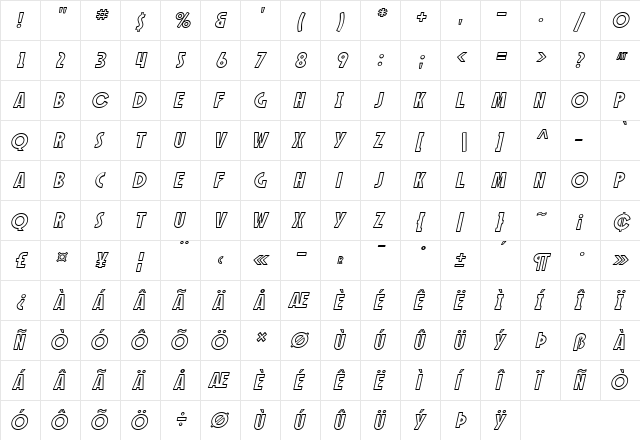
SF Speakeasy Outline Oblique
| Designer | ShyFonts Type Foundry |
Design Context for SF Speakeasy Outline Typeface
SF Speakeasy Outline brings ornamental detail and strong personality to headlines and identities, where visual impact matters more than quiet functionality. The dynamic lean of this cut emphasises speed and emphasis in any layout.
Font Pairing: Pair with a clean neutral sans-serif for body copy to let SF Speakeasy Outline's character lead without overwhelming the composition.
Pro Tip: Use SF Speakeasy Outline exclusively at display sizes — it was designed to be seen, not read at length. Let a neutral companion handle body copy.